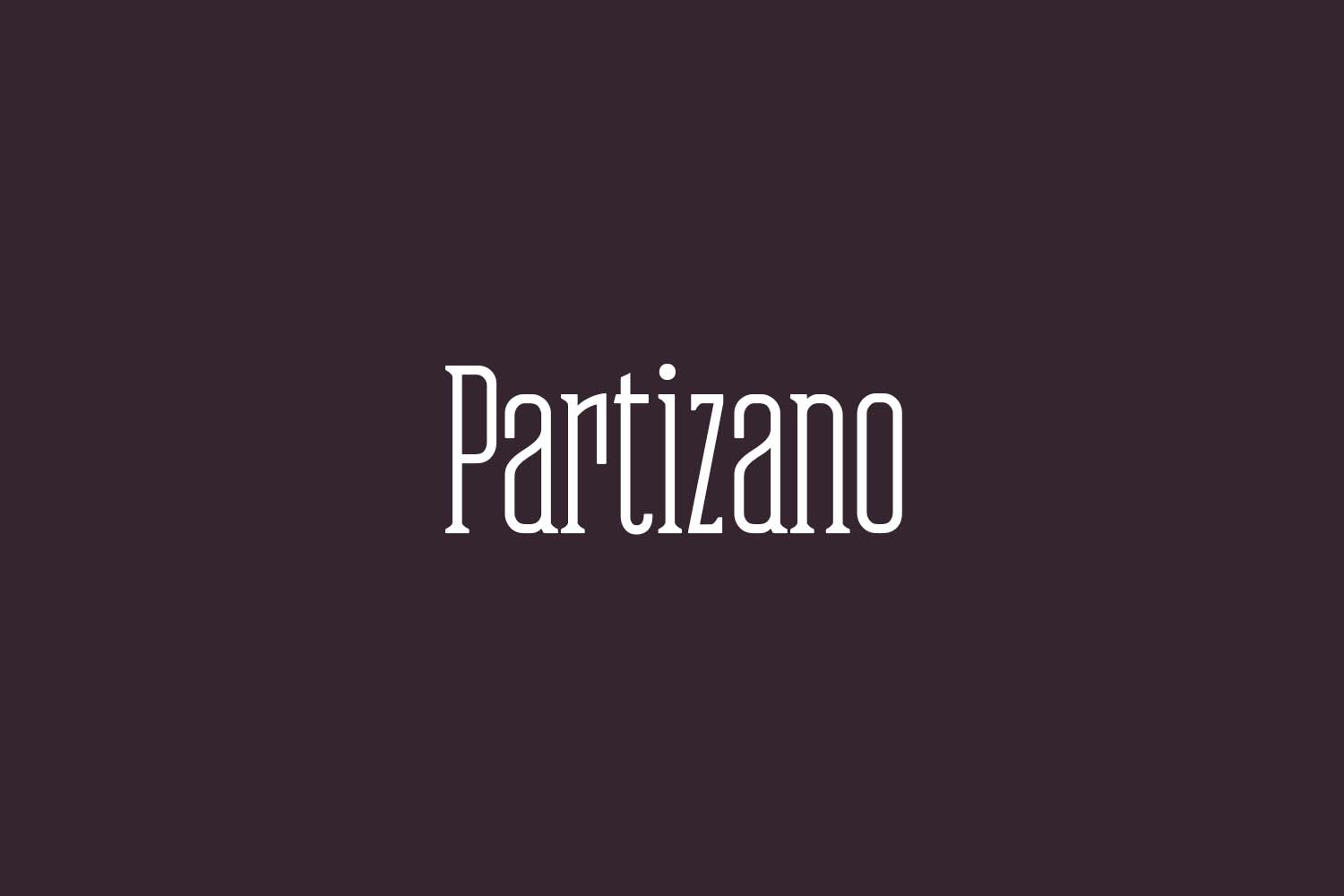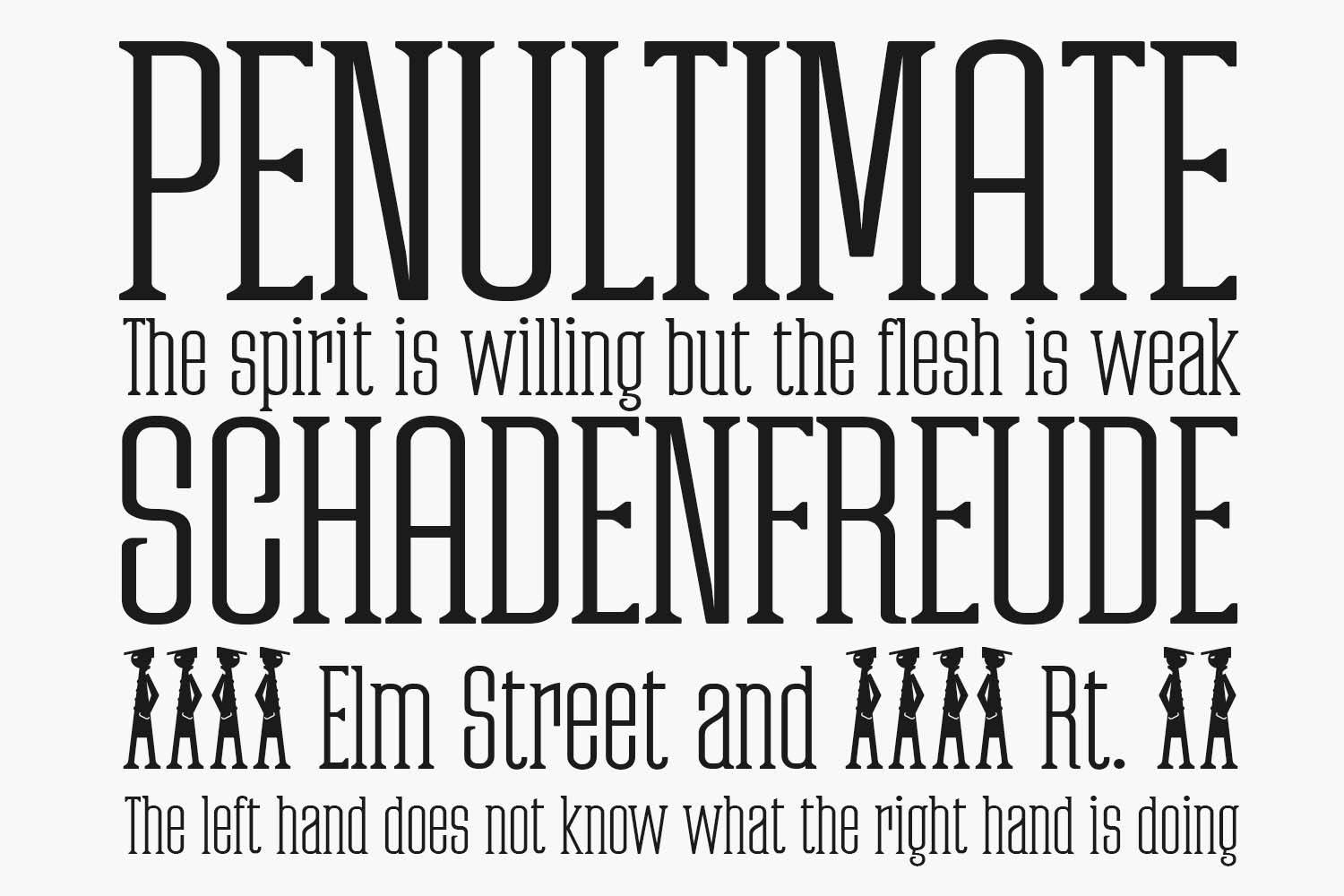
Partizano Free Font is geometric typography with serif, extra-condensed retro look, and very elegant for use in publications, graphic design, and advertising where you need exclusive typography with great horizontal space-saving for headlines and paragraph texts. It has a complete set of capital letters and numbers and monetary symbols in small caps, also alternative letters such as the ‘A’ capital letter or the lowercase ‘a’ type alpha. Partizano Free Font was designed by deFharo is a demo and free for personal use only. Please purchase the full version for commercial use.